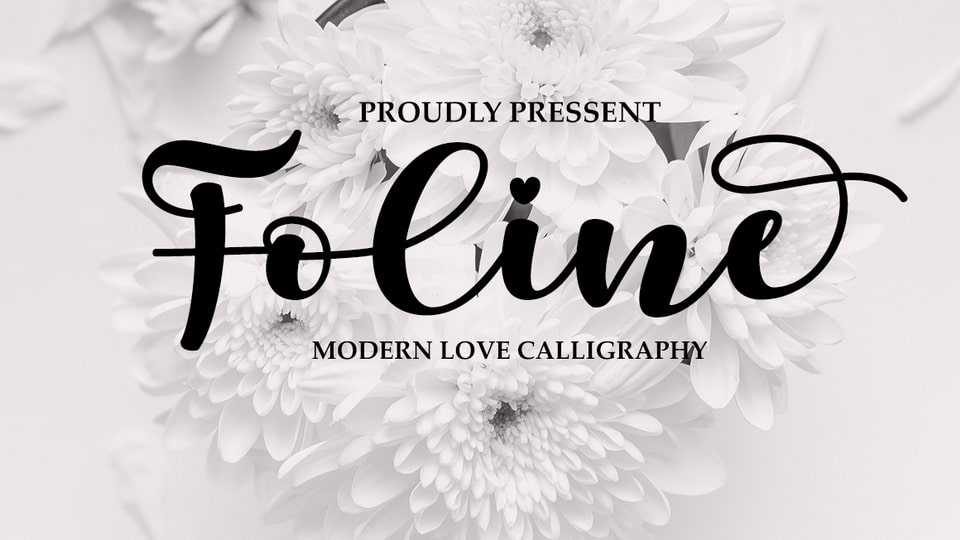
Download Foline font, a stylish modern calligraphic script with lots of personality. Beautiful Opentype featured with lovely standard ligatures that replicate natural handwriting.